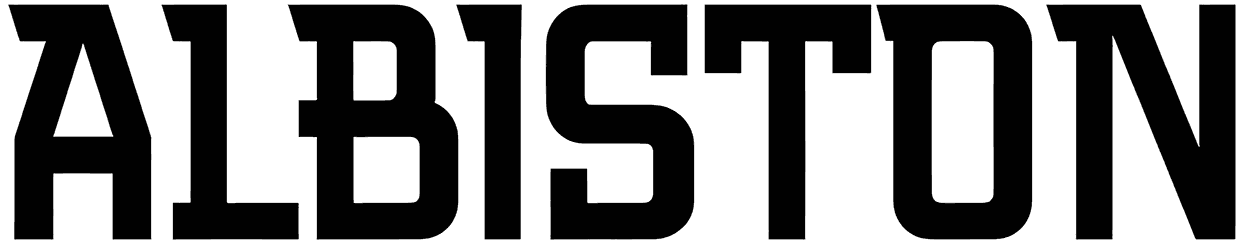
Pirates of Cydonia Font
Creating striking artwork using your typography won’t be much of a big deal with condensed square letters of Pirates of Cydonia.
Due to its sturdy look, this game font is perfect for headlines, or in other words, logos, clothing, announcements, posters, and things like that. All you’ve got to do is to get the balls rolling and that, my friends, is the code for clicking the download link. Enjoy!
Designed by: Chequered Ink